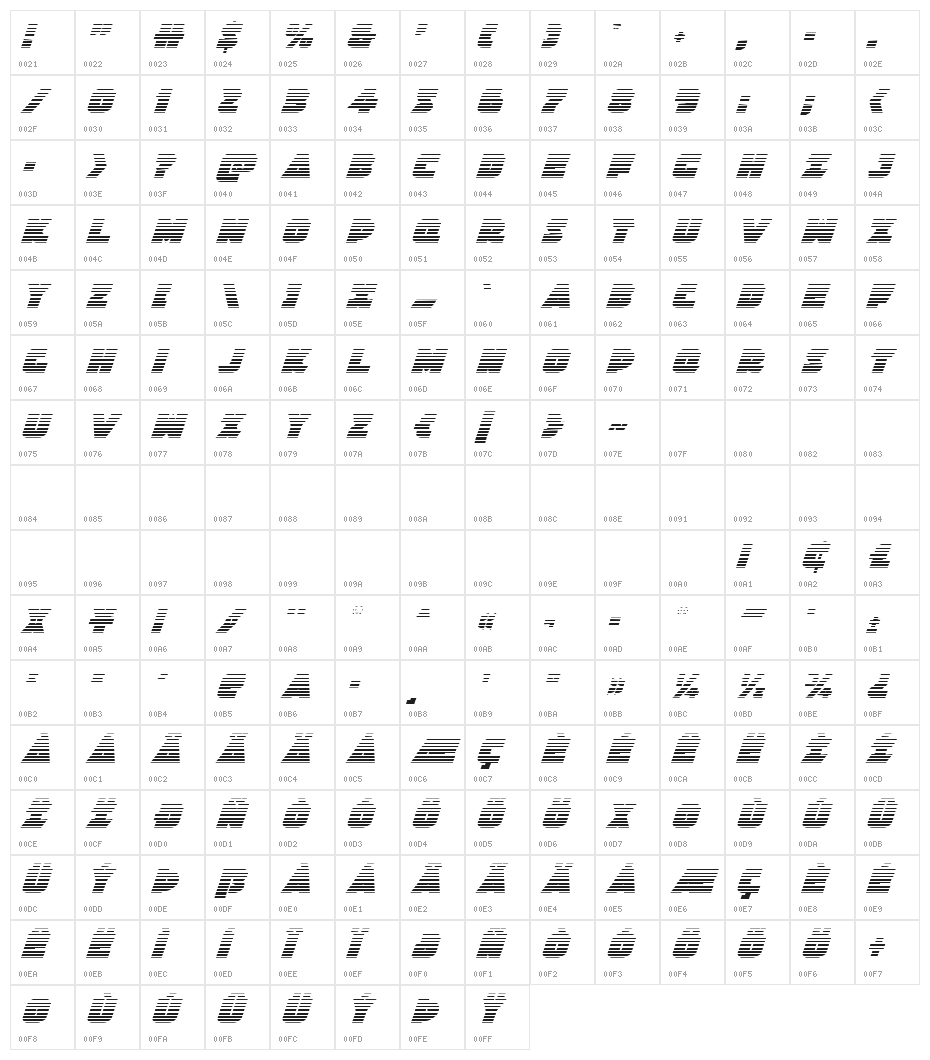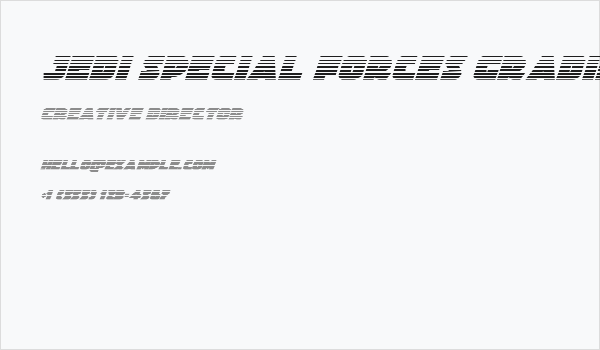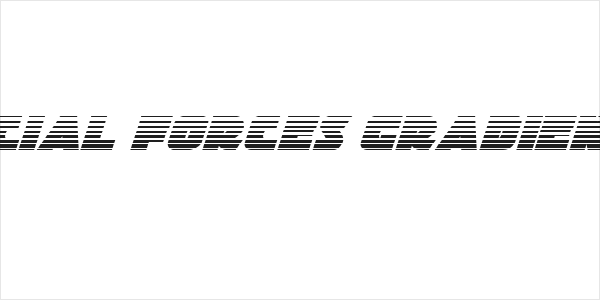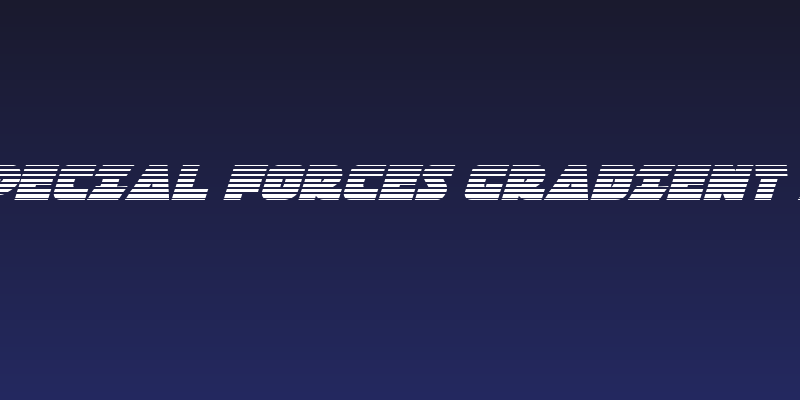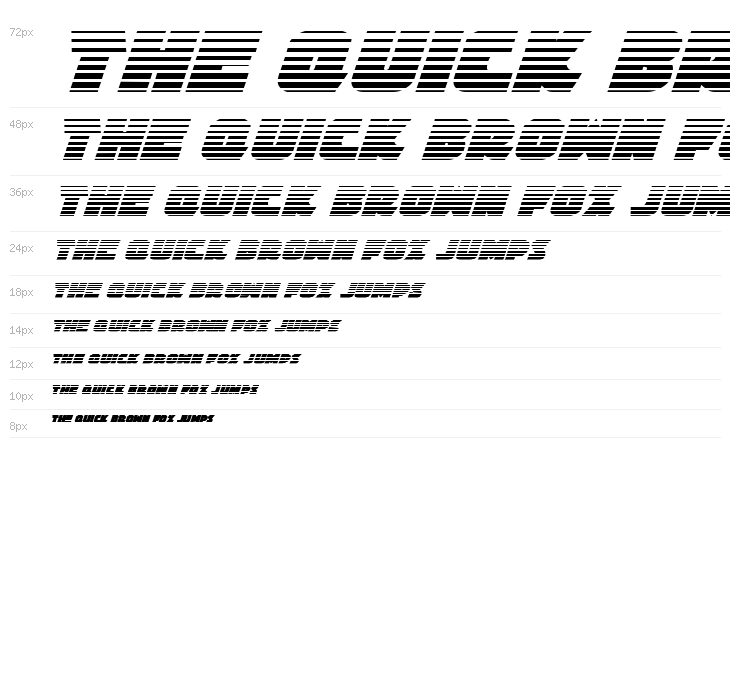
Jedi Special Forces Gradient Italic Font
Jedi Special Forces Gradient Italic Description
This font features a futuristic and dynamic design, characterized by its bold, italicized letters with a gradient effect created by horizontal lines cutting through each character. The style is reminiscent of high-speed motion, giving it an energetic and modern appearance. The uppercase and lowercase letters maintain a consistent slant, enhancing the sense of movement. The numerals and special characters follow the same design principles, ensuring uniformity across the font. This font is ideal for projects that require a bold statement and a sense of speed or technology.
| Overall Style | Futuristic, Dynamic |
| Proposed Projects | Ideal for sci-fi themed projects, video game titles, tech branding, and dynamic posters. |